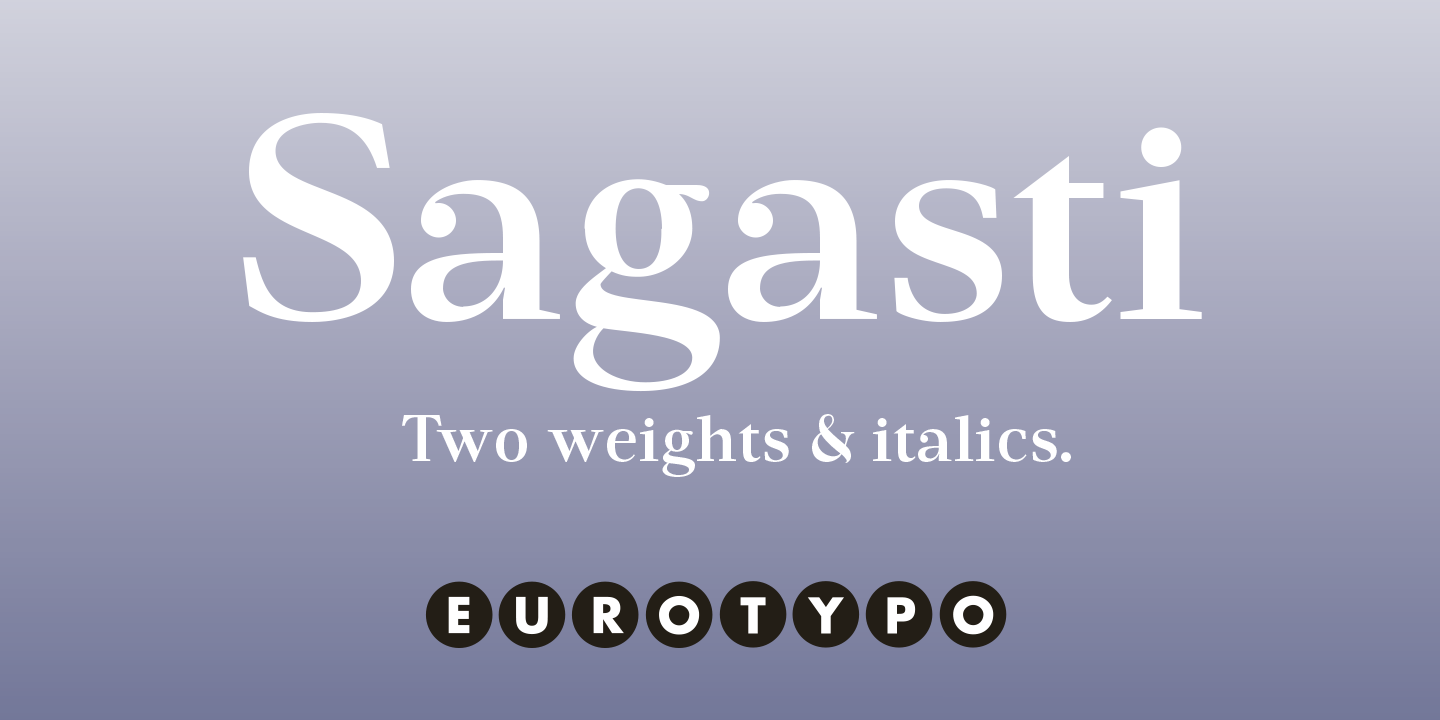
Sagasti Font is perfect for luxury brand identity, high-end fashion magazines, premium product packaging, elegant wedding invitations, sophisticated restaurant menus, jewelry store branding, cosmetic brand materials, upscale hotel signage, art gallery exhibitions, and exclusive event promotions.
What makes Sagasti Font so exciting is its masterful blend of classical elegance and contemporary refinement that creates an instantly recognizable luxury aesthetic. This typeface features graceful letterforms with sophisticated curves and delicate serifs that exude timeless sophistication. The font's premium character communicates exclusivity and quality, making it the perfect choice for brands seeking to establish an upscale market position and connect with discerning audiences who appreciate fine design details.
Sagasti Font family includes Regular, Medium, Bold, and Light weights, along with elegant italic variations. The family also features decorative alternates, stylistic ligatures, and ornamental elements that enhance the font's luxury appeal and provide designers with extensive creative possibilities for high-end applications.
Sagasti Font supports comprehensive character sets including Latin alphabets, numerals, punctuation marks, and special symbols. The font's meticulously crafted spacing and kerning ensure optimal elegance across all sizes and applications. Its OpenType features include stylistic alternates, decorative swashes, and contextual ligatures that expand creative possibilities for sophisticated typography solutions.
Professional designers choose Sagasti Font for projects requiring exceptional elegance and luxury appeal. The font excels in applications where premium positioning is essential, offering the perfect solution for brands seeking to communicate sophistication, quality, and exclusivity. Its refined appearance makes it ideal for luxury goods, high-end services, and premium lifestyle brands.